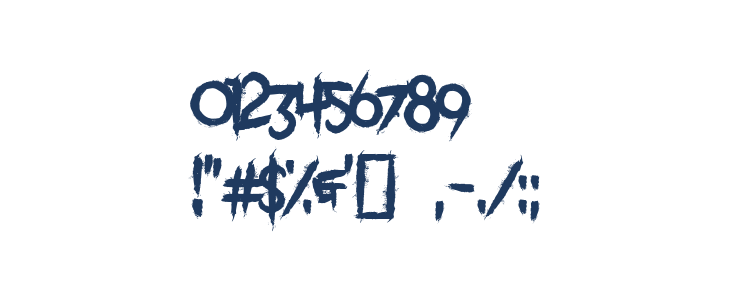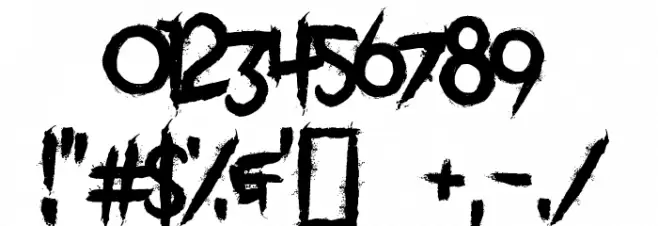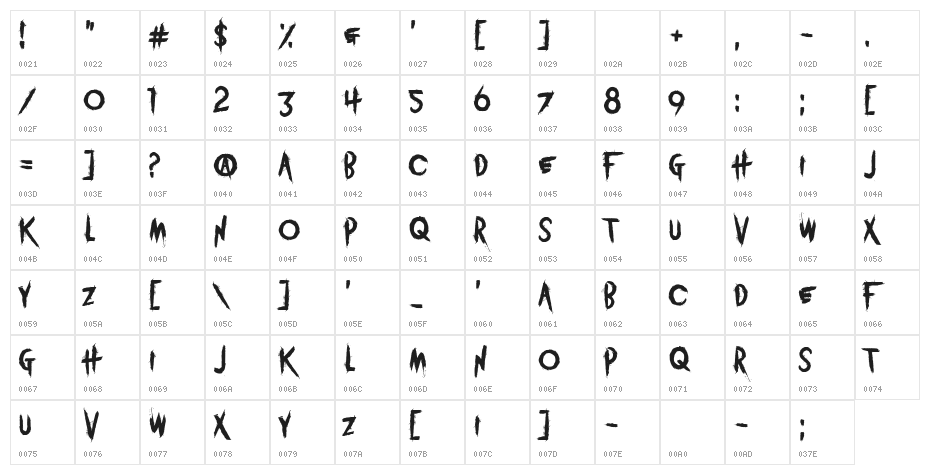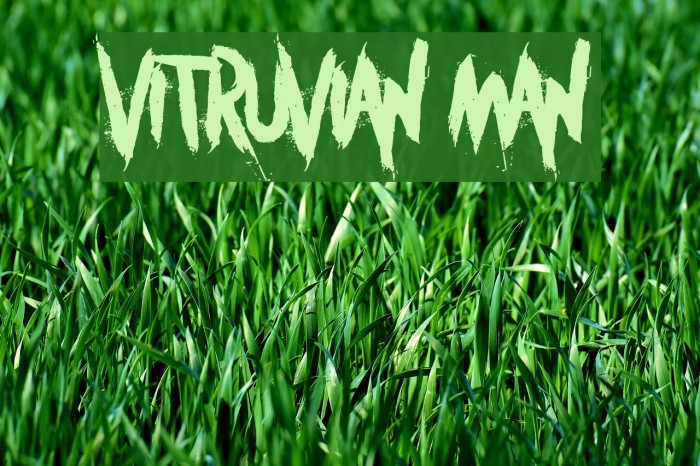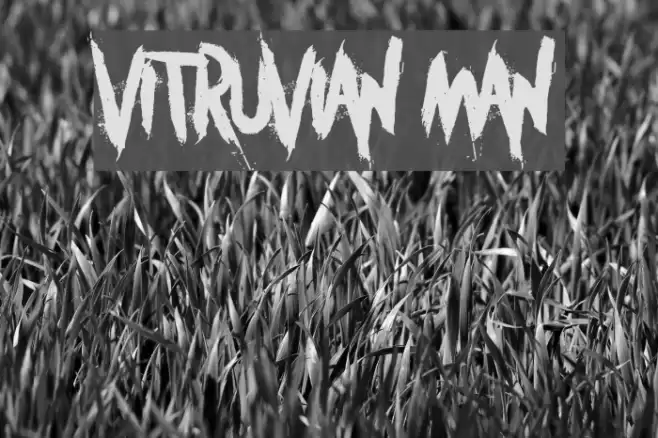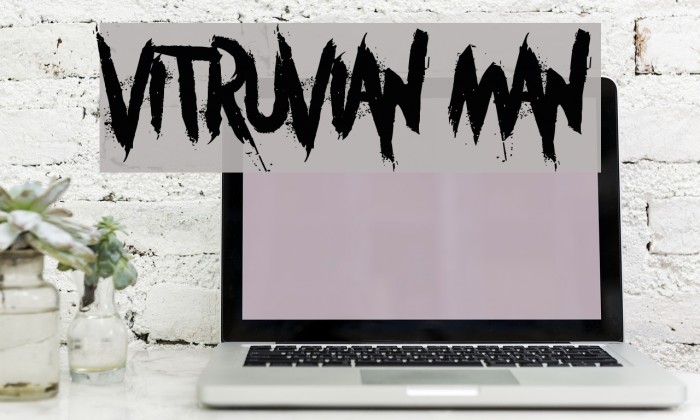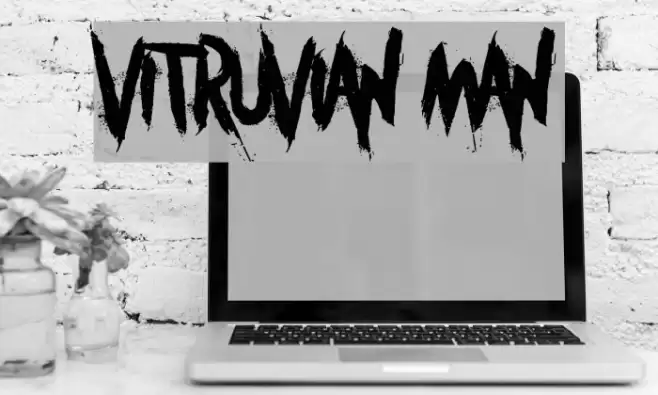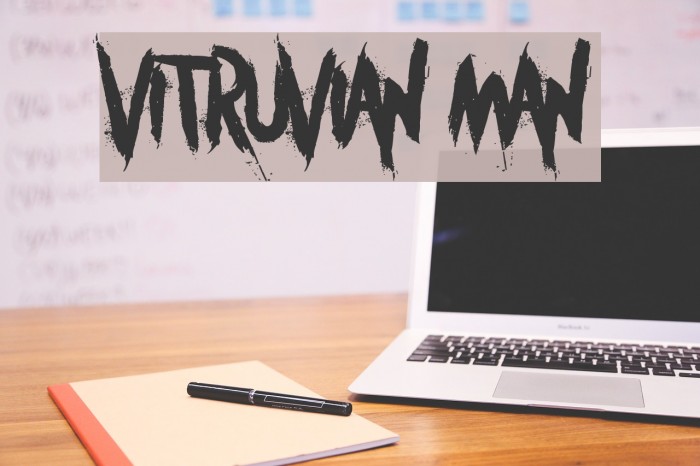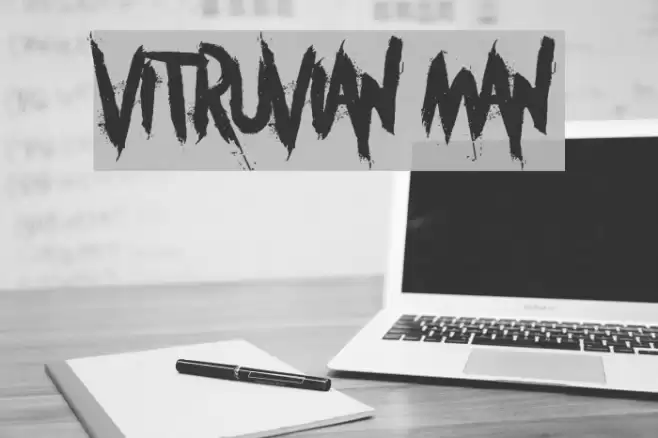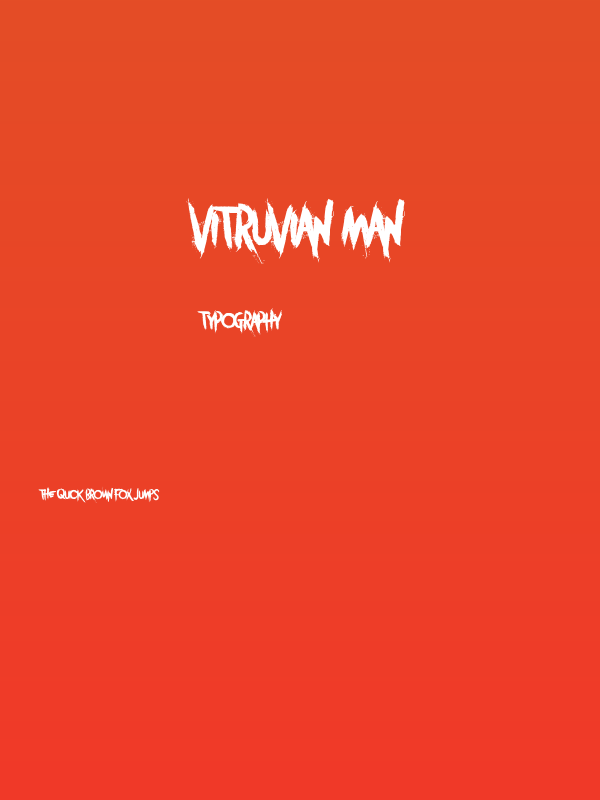
Vitruvian Man Font
Vitruvian Man Description
This font features a bold and expressive style with a hand-drawn, brush-like appearance. The letters are characterized by their rough, textured edges and dynamic strokes, creating a sense of movement and energy. The uppercase and lowercase letters maintain a consistent style, with angular forms and varying stroke widths that add to the font's dramatic impact. The numerals and special characters follow the same aesthetic, ensuring a cohesive look across all elements. This font's unique and artistic design makes it stand out, ideal for projects that require a strong visual statement.